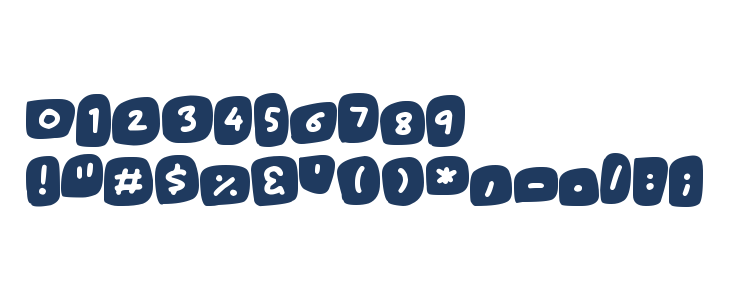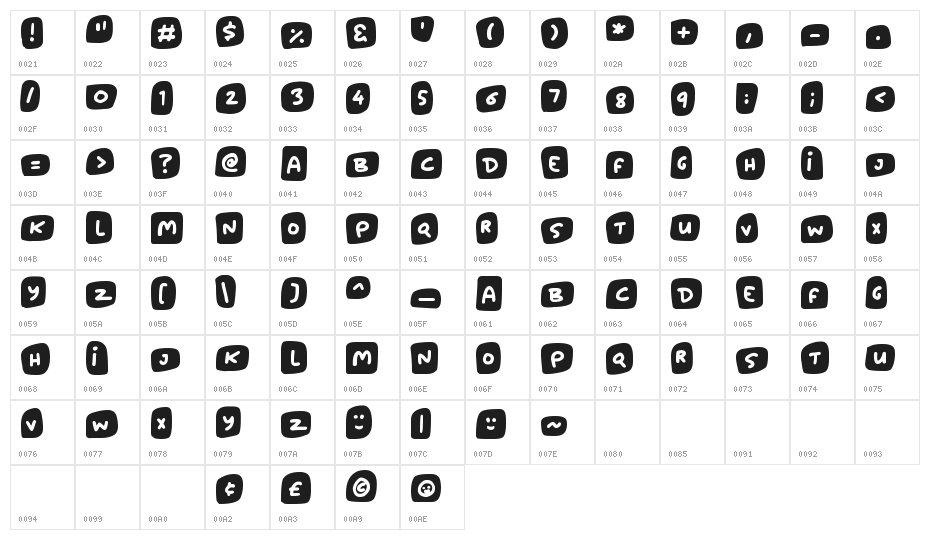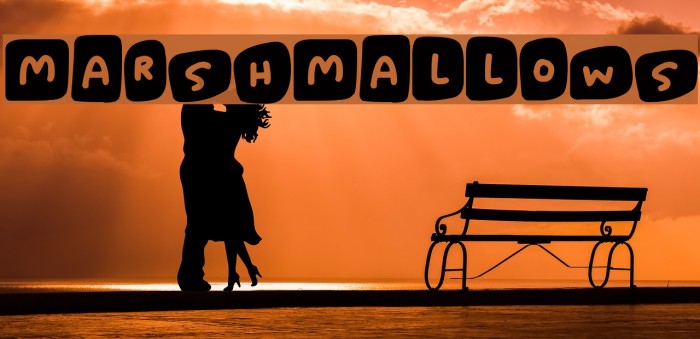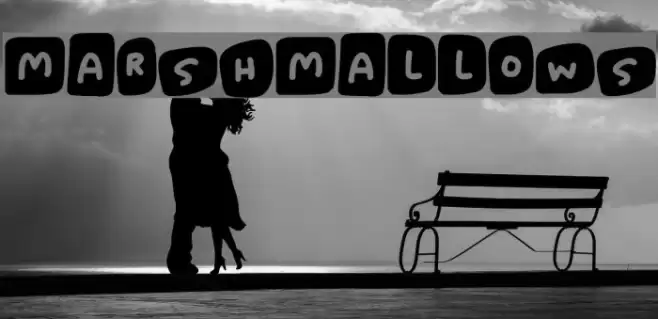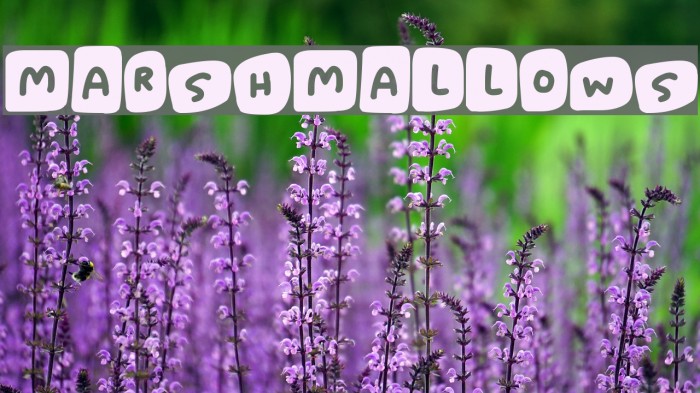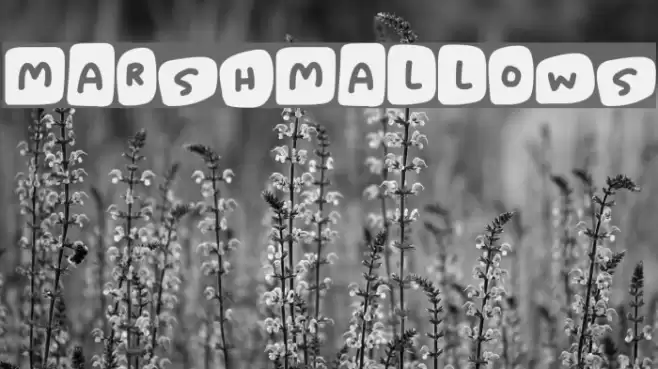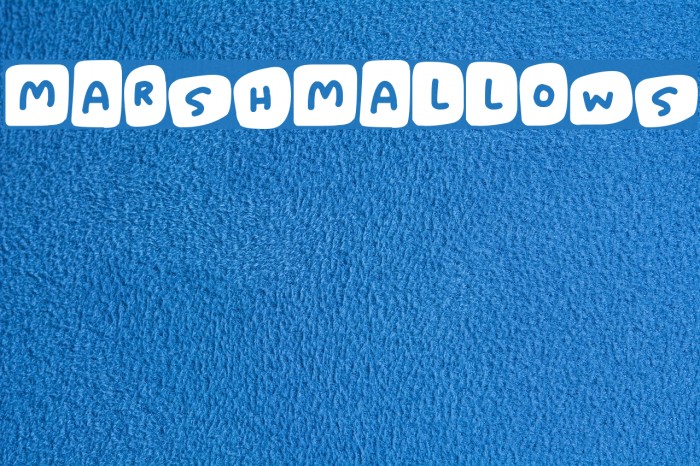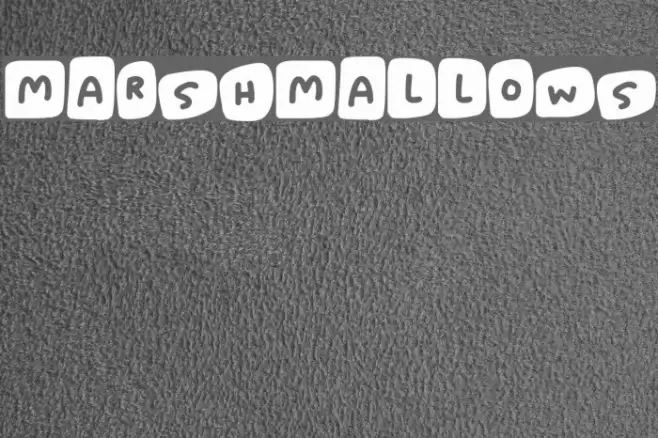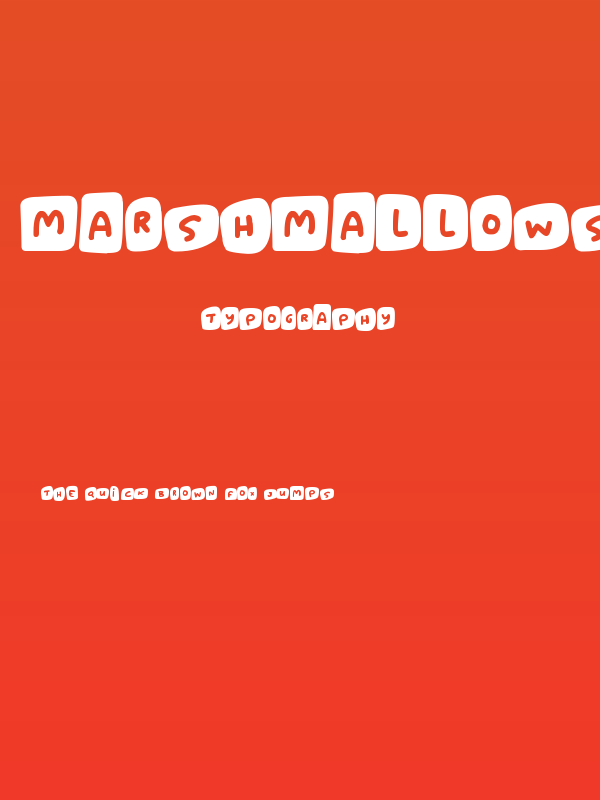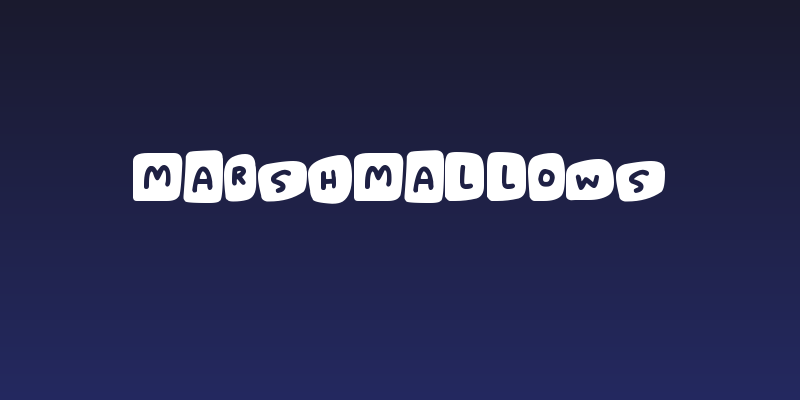
Marshmallows Font
Marshmallows Description
This playful and whimsical font features rounded, bubbly characters that resemble marshmallows. Each letter is encased in a soft, pillowy shape, giving it a unique and friendly appearance. The font maintains a consistent thickness throughout, with a slightly irregular, hand-drawn quality that adds to its charm. The characters are bold and stand out, making them suitable for eye-catching designs. The numbers and special characters follow the same playful style, ensuring a cohesive look across all text elements.
| Proposed Projects | Ideal for children's books, playful branding, party invitations, and any project requiring a fun, lighthearted touch. |